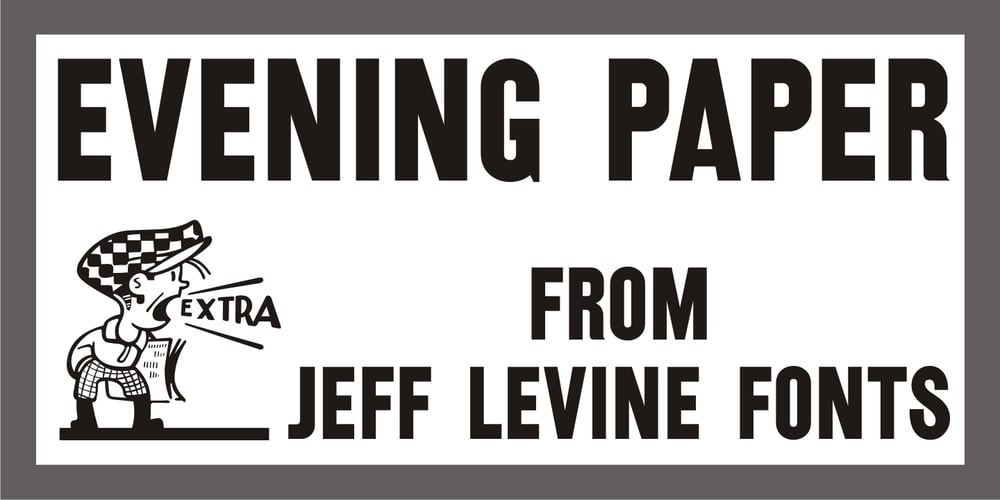
Evening Paper JNL Font Family was designed by Jeff Levine and published by Jeff Levine. Evening Paper JNL contains 1 styles and family package options. Evening Paper JNL, one could say, was “culled from the headlines”. It was. The front page headlines from some 1938 newspapers archived online were the basic model for this font. The typeface design goes back to a font first issued by Ludlow in the 1920s.